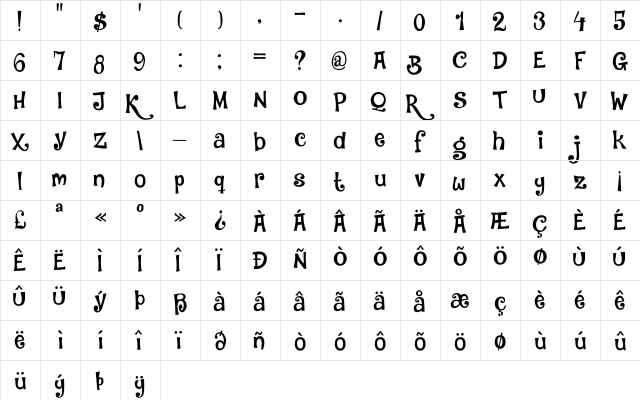
DK Jambo Regular
| Foundry | David Kerkhoff |
| Designer | David Kerkhoff |
Design Context for DK Jambo Typeface
DK Jambo is a composed and adaptable typeface that performs quietly and consistently across a wide range of design contexts.